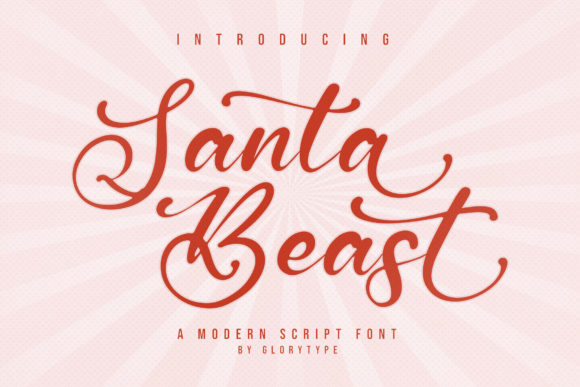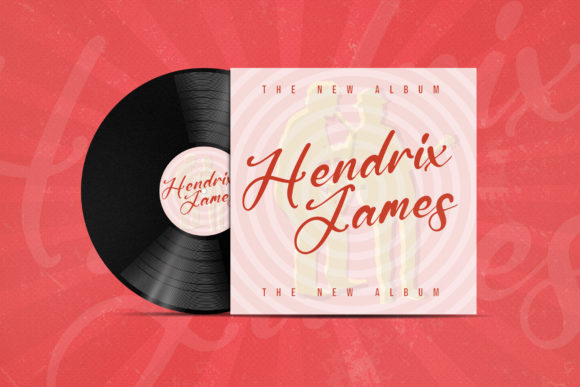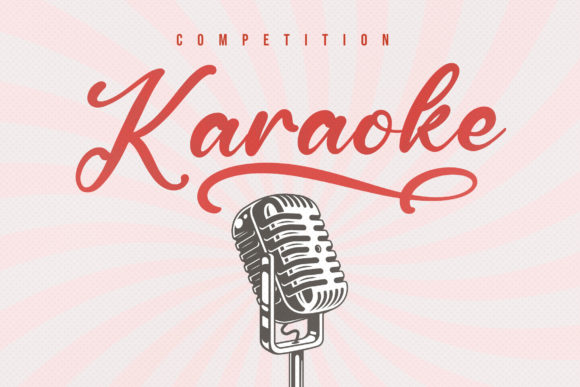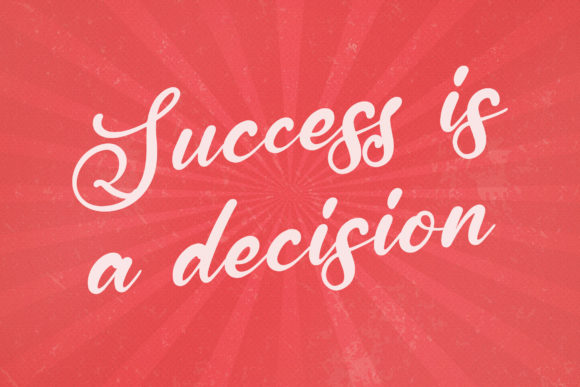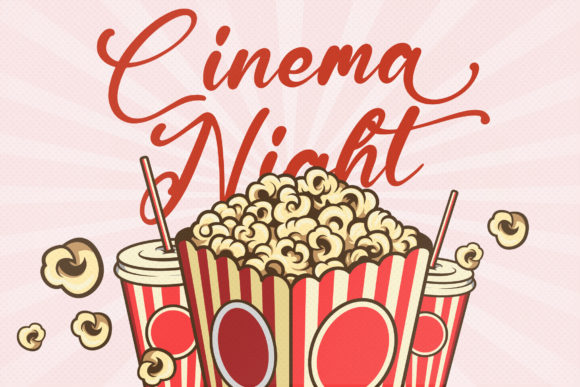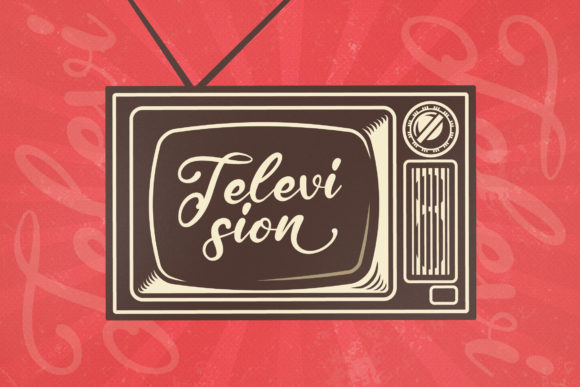
Introduction to Santa Beast Font
As a designer, have you ever found yourself in the midst of a creative project, struggling to find the perfect font to bring your vision to life? You’ve scoured through countless options, but nothing seems to capture the essence of your idea. It’s moments like these that make us appreciate the value of a high-quality design resource like the Santa Beast Font.
With its beautiful, flexible handwritten style, the Santa Beast Font is the perfect solution for designers looking to add a touch of elegance and sophistication to their work. Whether you’re creating business cards, wedding invitations, or banner ads, this font is sure to impress. And with its PUA encoded feature, you can access all of the glyphs and swashes with ease, making it a valuable asset for any creative project.
Key Features of Santa Beast Font
- High-quality, bold, and playful font design perfect for creative projects and festive occasions.
- Features a transparent background, allowing for seamless integration with any design or background.
- Comes in a range of sizes, from 8pt to 64pt, making it suitable for various design applications, from small text to large headlines.
- Resolution: 300 DPI, ensuring crisp and clear display on high-resolution screens and prints.
- Designed to evoke a fun and playful atmosphere, making it ideal for holiday-themed projects, party invitations, and festive designs.
- Perfect design resource for graphic designers, artists, and creatives looking for a unique and eye-catching font for their next project.
Honest Review: Santa Beast Font
I recently had the chance to dive into the world of the Santa Beast Font, and I must say, it’s been a fun experience. As a designer, I’m always on the lookout for new and exciting design resources, and this font has certainly delivered.
What works well: ✨ The high-quality design of this font is truly impressive. The intricate details and smooth lines make it perfect for creative projects that require a touch of magic. I’ve used it for a Christmas-themed poster, and it turned out amazing. Another great feature is the transparent background, which allows for seamless integration into any design.
Limitations: ⚠️ While the Santa Beast Font is free to download, it’s not without its limitations. The font only includes a limited number of characters, making it less versatile than some other fonts. Additionally, the font’s design can be a bit overwhelming for smaller text sizes.
Overall, I’m impressed with the Santa Beast Font. It’s a great addition to any designer’s toolkit, especially for creative projects that require a touch of whimsy. Just be aware of its limitations, and you’ll be all set to unleash your creativity with this fun and festive font.
Tips for Getting the Most Out of the Santa Beast Font
For the best results, use the Santa Beast Font in conjunction with other design elements, such as bold lines, bright colors, and playful graphics. Experiment with different font sizes and styles to create a visually appealing design.
The Santa Beast Font is perfect for holiday-themed designs, such as Christmas cards, gift tags, and party invitations. It’s also great for creating fun and playful designs for children’s projects, like birthday parties and school projects.
Is the Santa Beast Font suitable for digital and print projects?
Yes, the Santa Beast Font is suitable for both digital and print projects. The font is designed to be high-resolution, making it perfect for print projects such as business cards, brochures, and posters. It’s also optimized for digital use, making it ideal for web design, social media, and other digital projects.